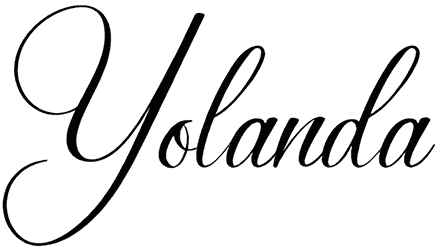
Yolanda Font
Yolanda is an energetic font that helps designers to create a masterpiece in their digital and printed designs. The easy readability of this calligraphy font contributes to the fact that it is designed to move to stimulate the viewer’s senses.
By arming yourself with this certificate font, you can leave the page and convey your message clearly to the viewer. So if you’re looking for a simple yet elegant expression for designing greeting cards and invitations, add Yolanda to your collection.
Yolanda is a fashionable script font. It is neatly crafted and highly detailed. Whatever the topic, Yolanda will be a wonderful asset to your fonts’ library, as it has the potential to enhance any creation.